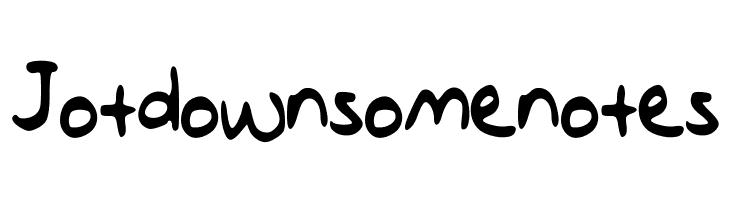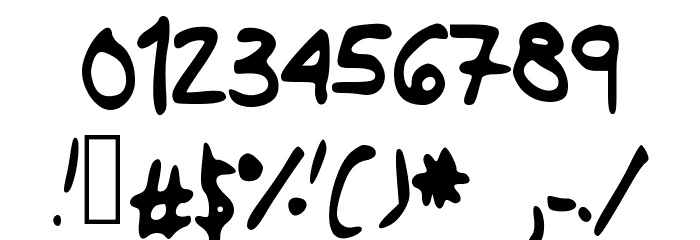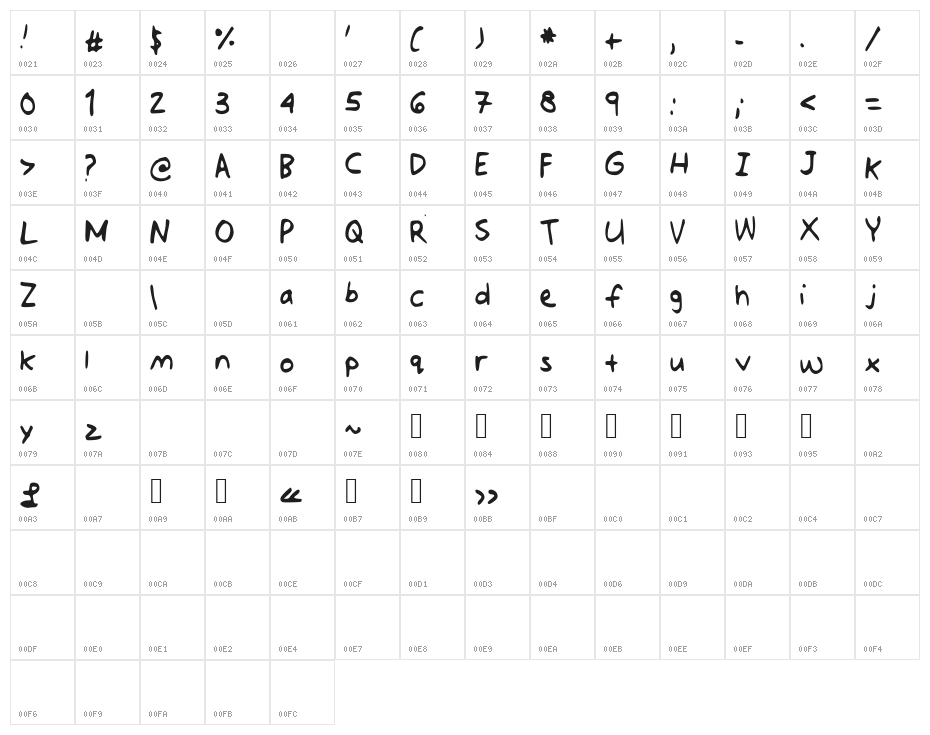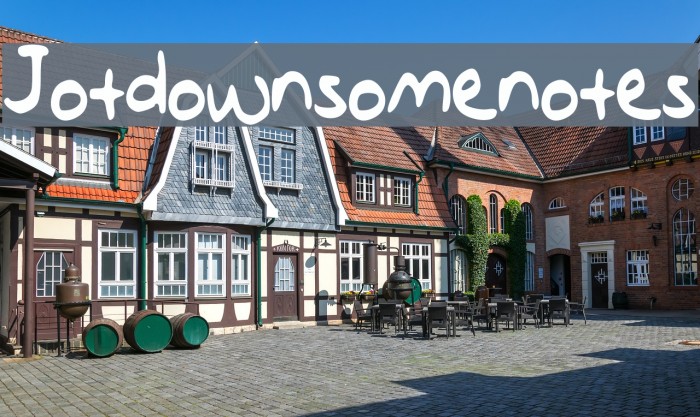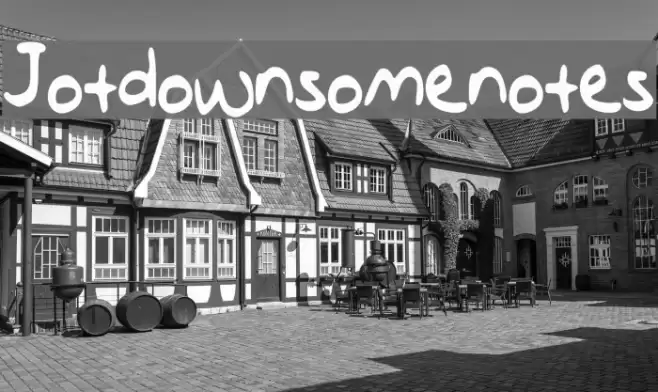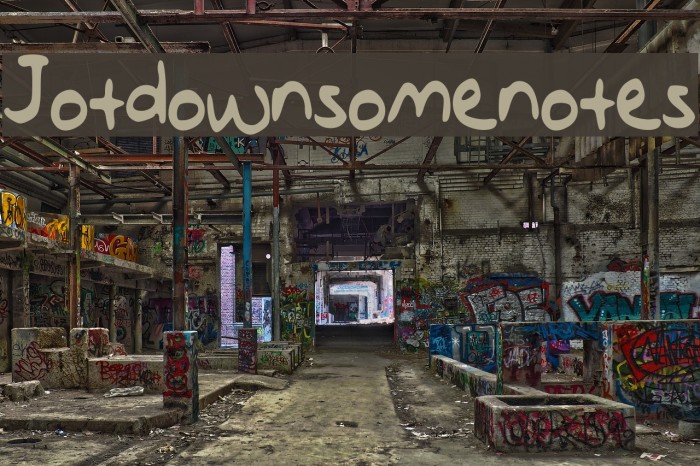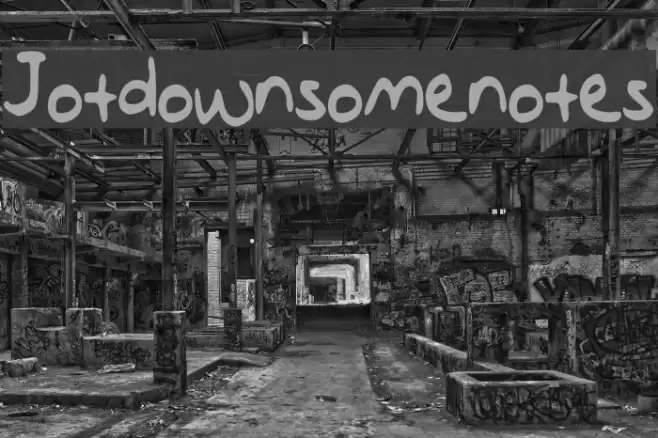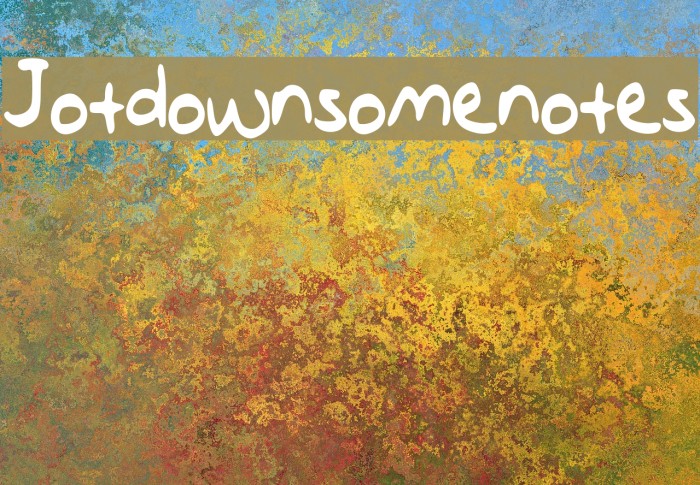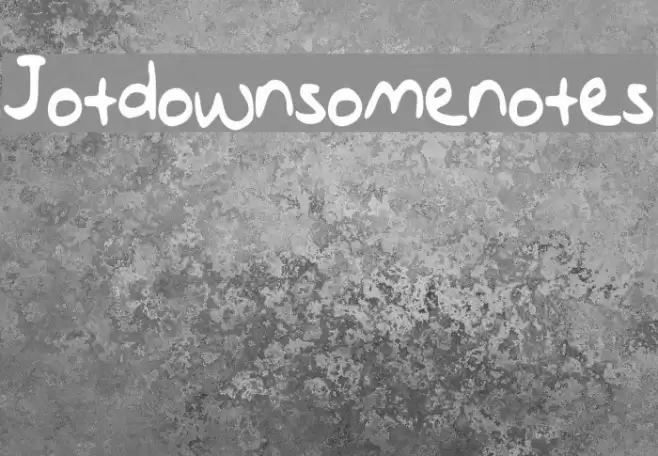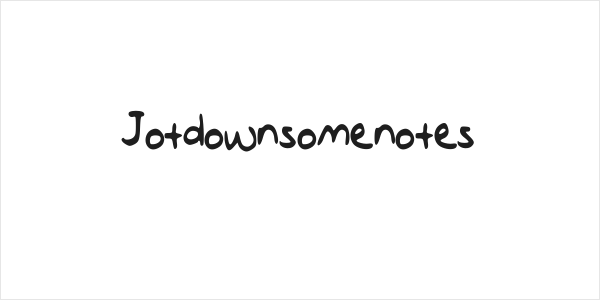
Jotdownsomenotes Font
Jotdownsomenotes Description
This playful and bold handwritten font exudes a casual and friendly vibe, making it ideal for projects that require a personal touch. The characters are rounded and slightly irregular, giving them a dynamic and lively appearance. The uppercase and lowercase letters are well-balanced, with a consistent stroke width that maintains readability. The numbers and special characters are designed to match the overall style, ensuring a cohesive look across all text elements. This font is perfect for creative projects that aim to convey warmth and approachability.
| Proposed Projects | Ideal for children's books, greeting cards, playful branding, and social media graphics. |